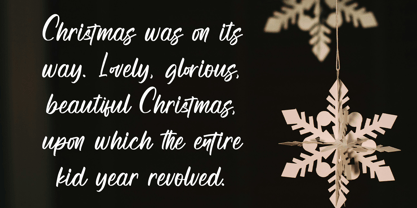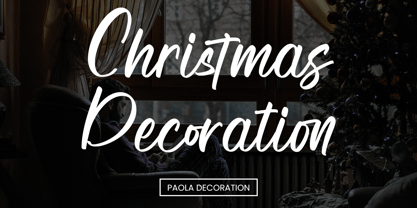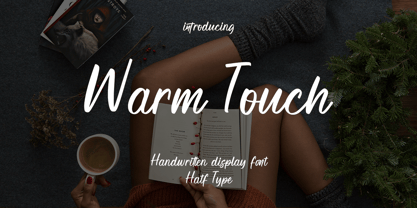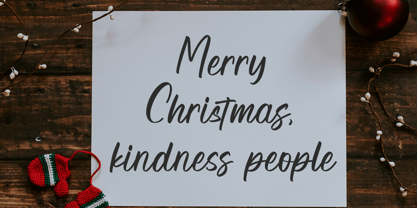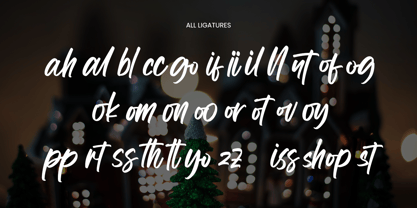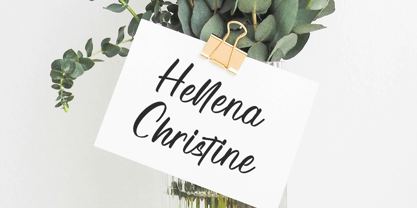
Warm Touch
La familia tipográfica Warm Touch fue diseñada por Asep Rendi y publicada por Hatftype. Warm Touch contiene 1 estilos. Más información sobre esta familia
WARM TOUCH is a handwritten font that exudes warmth and intimacy in every stroke. Its smooth and natural design gives a personal impression, like a pen stroke created with love and care. Suitable for various creative needs, such as wedding invitations, inspirational quotes, to branding that requires a human touch.
This font is designed to convey warm emotions with a style that remains elegant. Its soft yet firm lines provide the perfect balance between simplicity and modern aesthetics. WARM TOUCH is the ideal choice to make your designs feel closer, personal, and full of feelings.
Bring softness and a touch of affection into every design project with WARM TOUCH Handwritten Display Font.